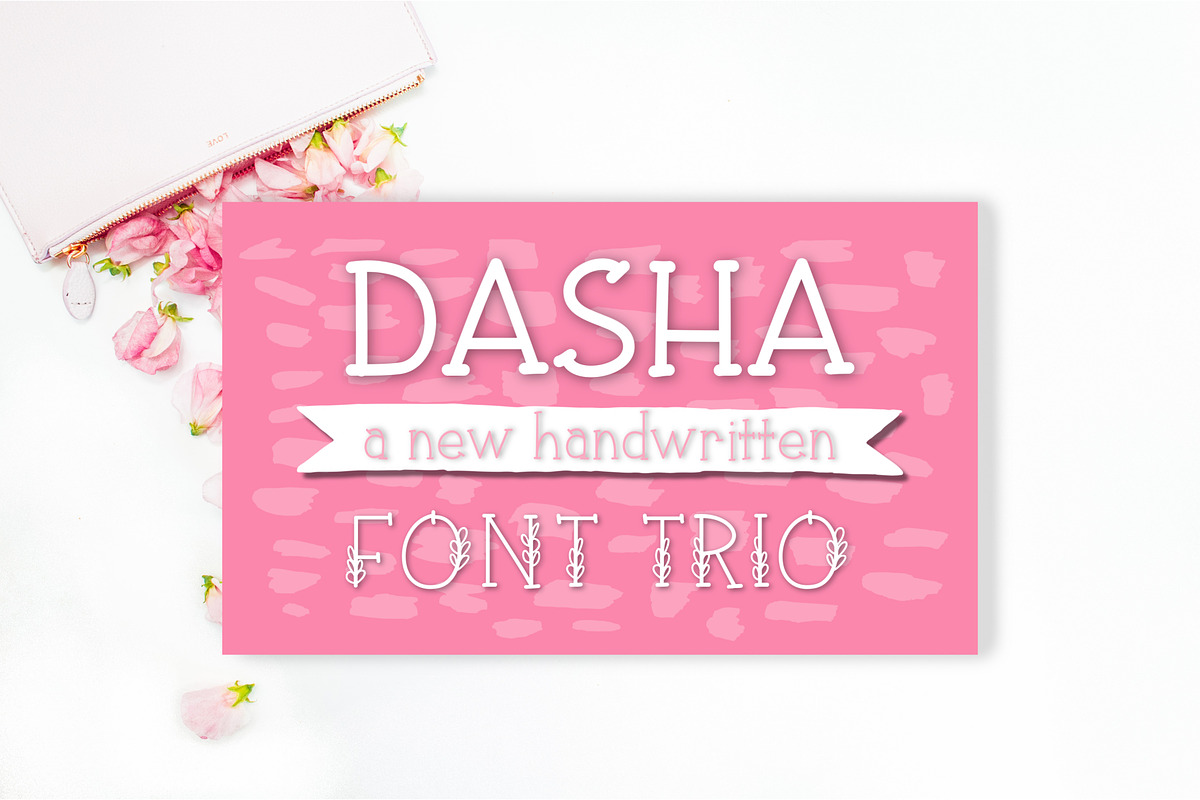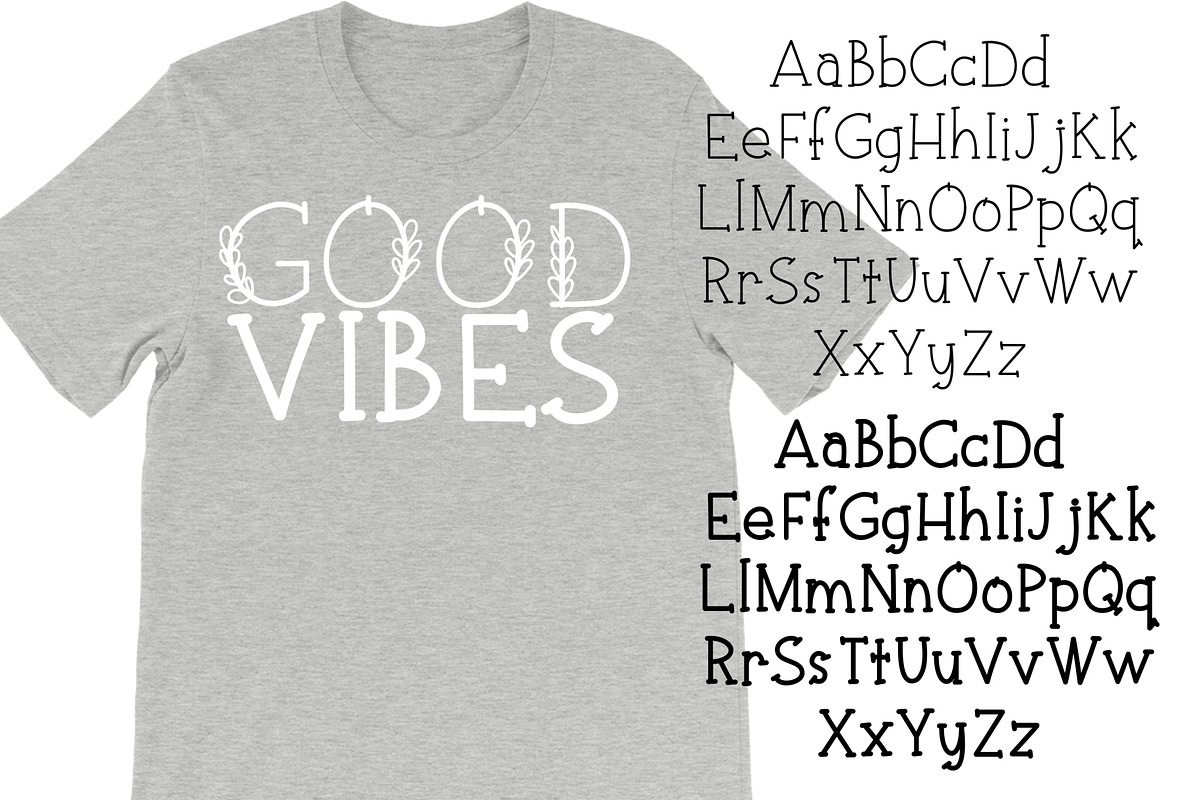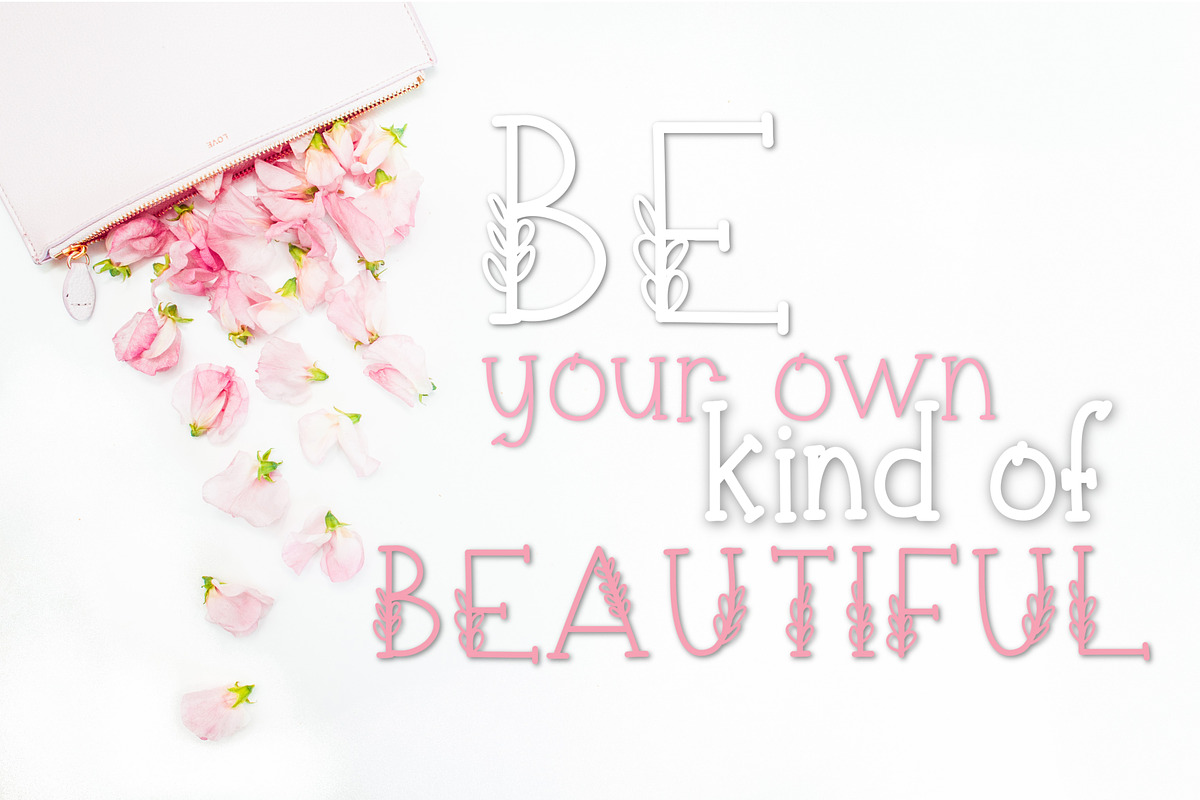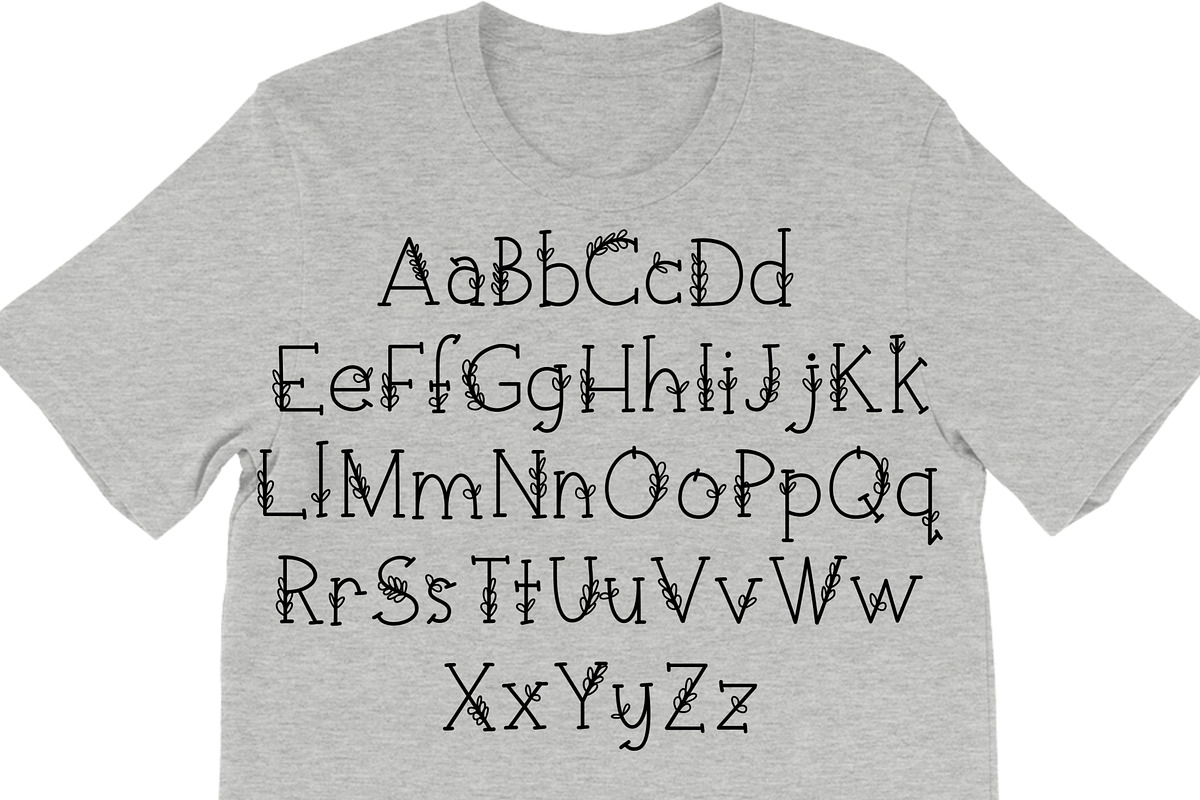
Dasha Font Trio
A new creative font trio. Perfect for crafting, school, inactivation or anything that needs a fun vibe to it. Handwritten by me for your to create and have fun with.